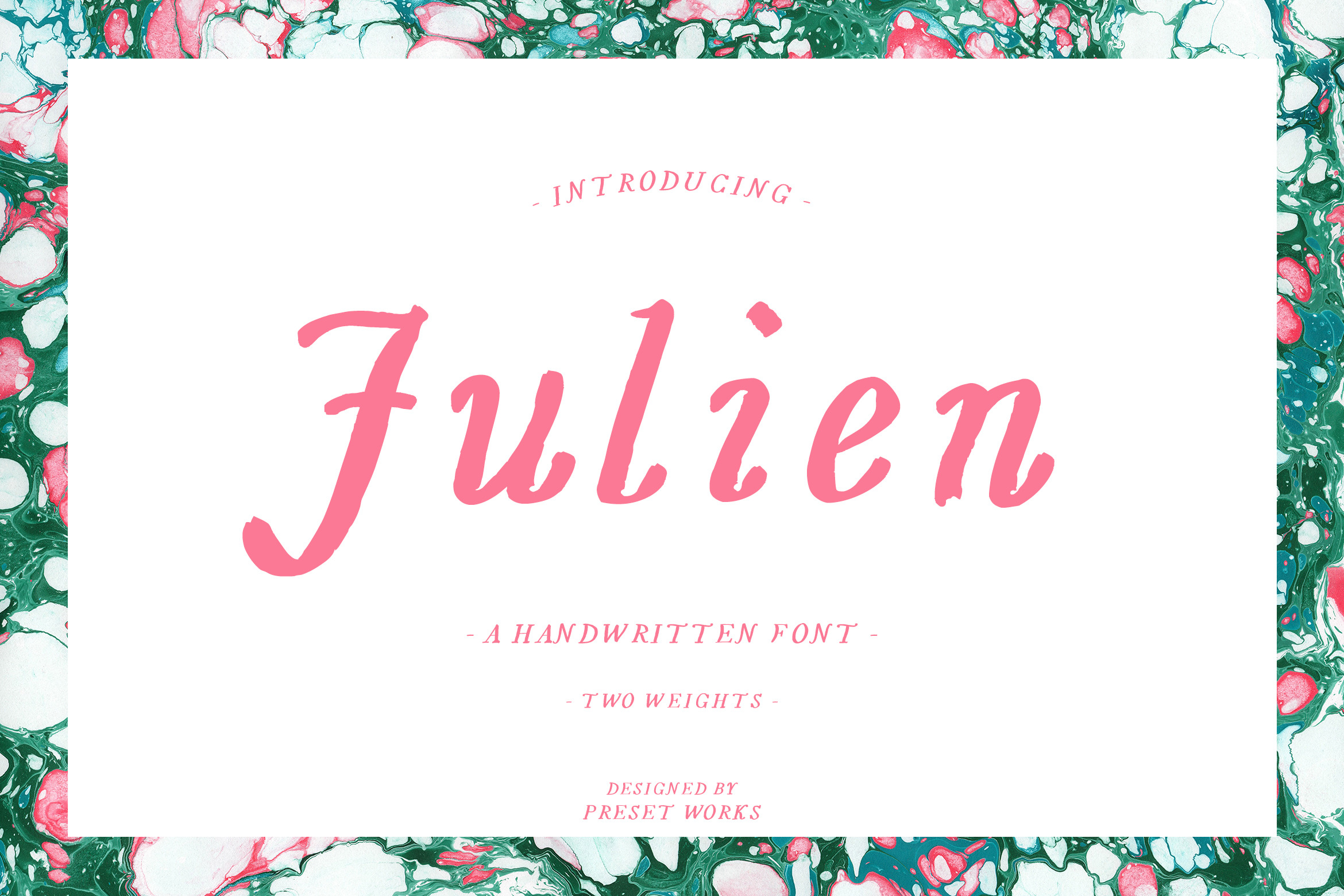
Julien - Handwritten Font
Julien is a fun handwritten font designed to be versatile in use. This hand crafted font will look great on posters, invitations, cards and any other project you are working on.
What Julien gives you - You get two font weights, upper and lower case letters, numbers, punctuation and a great selection on international characters.